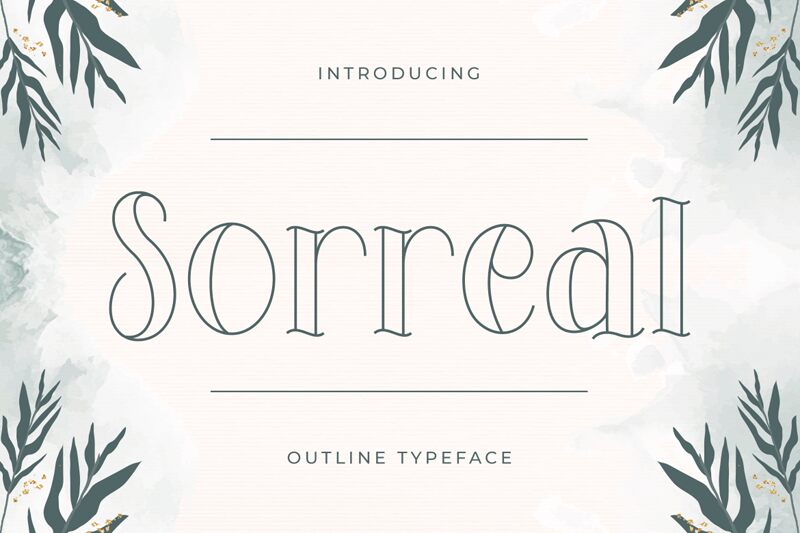
Sorreal is a striking display font from Typefactoryco that's perfect for projects requiring a bold, edgy vibe. Its semi-condensed width adds to its tattoo-inspired aesthetic, while its outlined style ensures maximum impact on any design. Use Sorreal for branding, advertising, packaging, album covers, and more - the possibilities are endless! This font's unique personality pairs well with modern or vintage designs alike. Get creative and experiment with Sorreal to make your next project stand out from the crowd.